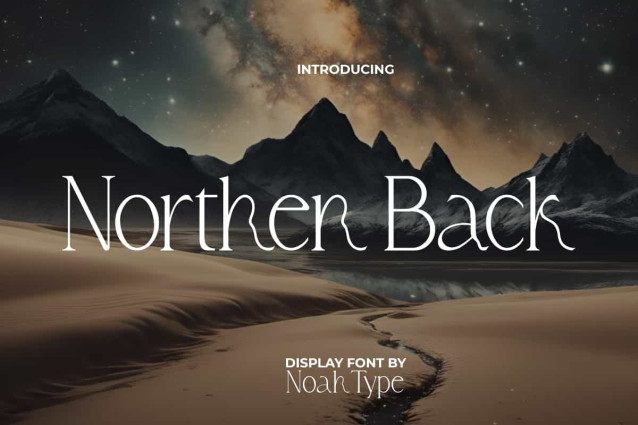
Northern Back Font
Northern Back Font is a fancy unusual shaky earthquake serif font. The simplicity of the font style can give off a timeless impression of luxury. It will be good for invitation, brand image, cover, custom design, label, marketing material, menu, poster, product packaging, quotes, signage, stationery, web, and many more!
Northern Back Font includes full set of Uppercase and Lowercase Basic Characters, Numerals and Punctuation. This font will be perfect choice for many industries, such as advertising, beauty product, boutique, cafe, event or wedding organizer, jewelry and accessories, photography, printing, publishing, restaurant, etc.